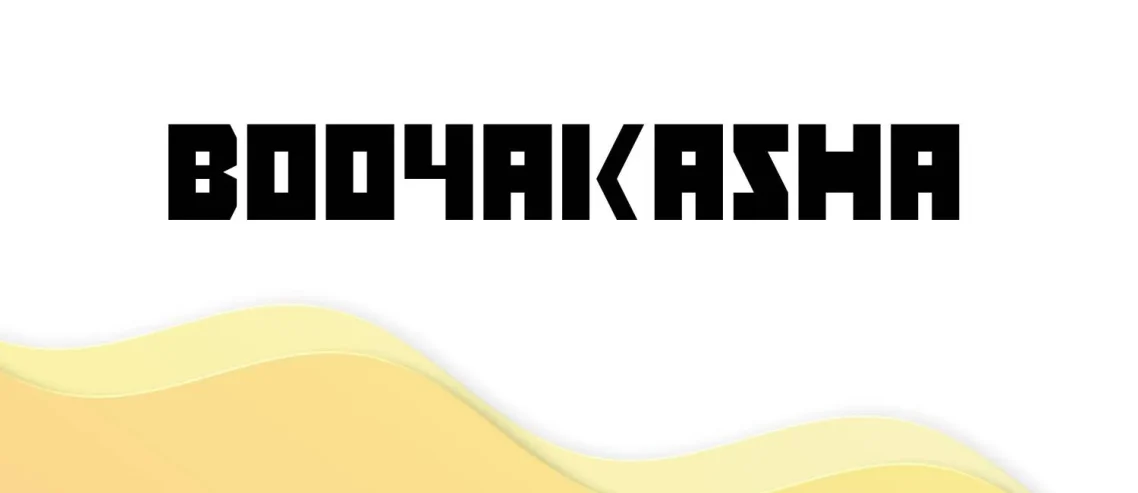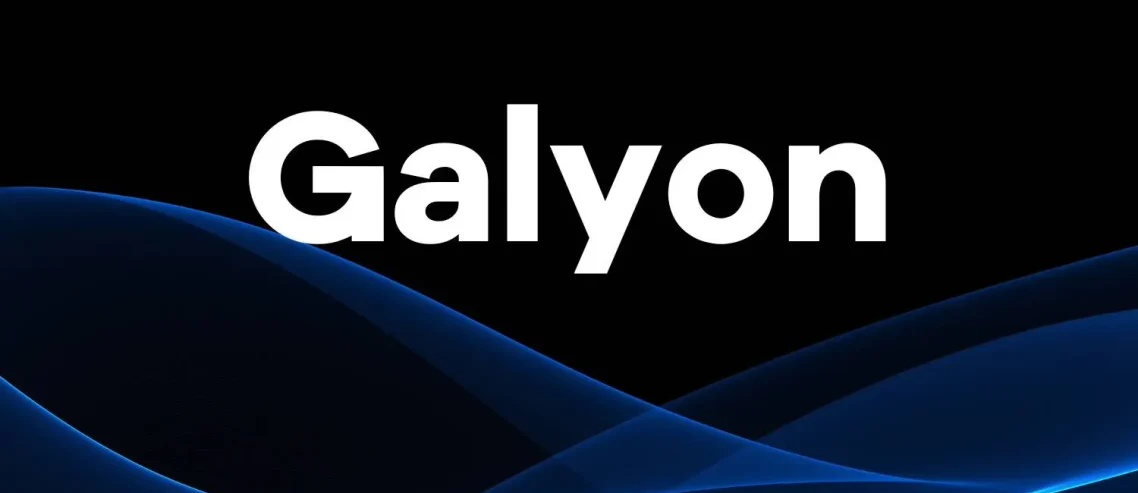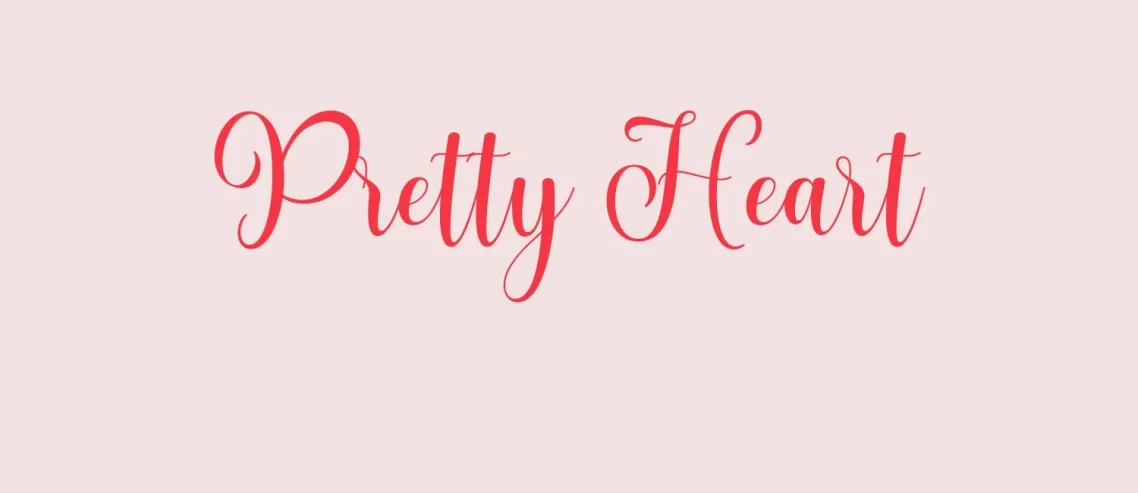
Rock on Font Free Download
Rock on Font is a sans serif typeface designed by Edda Gschwendtner. The design is based on the popular Rockwell typeface and features strong geometric shapes. It is much similar to the jersey font and you can make many stunning arts and illusions with the help of this font. The glyphs of this font have sharp …
Galyon Font Free Download
Galyon Font is an attractive and unique typeface that belongs to the Sans-Serif font family. This distinctive typeface was designed by an Australian foundry named GigaType. The characters of this font have neat and clean strokes with no decorative edges perfect for both short and long text. This typeface has a large character set that …
Booyakasha Font Free Download
Booyakasha Font is a bold texture with elegant features. This attractive typeface was developed by a famous typographer Jason Muriithi Kiama. It is perfect for headings, YouTube thumbnails, Titles, and subheadings. It belongs to the Techno font family. You can combine this stunning typeface with a fox sans font to give a unique texture to …
Got Milk Font Free Download
Got Milk Font is a unique font that was created in 1995. It was designed by Tom Mitchell and is considered to be one of the first “milk fonts”. The font is characterized by its thick, creamy strokes and its overall round shape. While the Got Milk Font is no longer as popular as it …
Pretty Heart Font Free Download
Pretty Heart Font is a unique typeface with elegant features. This stunning typeface lies under the script font family with a slight touch of the handwritten font family. You can download this typeface in different weights and styles. You can easily combine this typeface with source sans pro font to give a unique look to …
Bloody Font Free Download
Bloody Font is a typeface that was created by graphic designer Kerry Callahan. The font is based on the popular horror movie genre and features a bloody, dripping effect. The font is perfect for creating Halloween-themed designs, or for any project that needs a spooky, creepy feeling. This Font is available in both regular and …